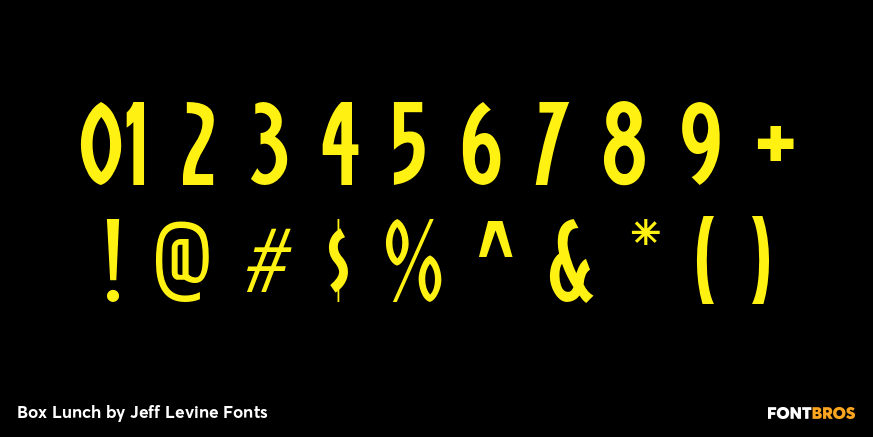
Box Lunch
Just two capital letters from a sign inspired Box Lunch JNL from Jeff Levine. The restaurant - an early 1950s favorite in Miami Beach, Florida specialized in fried chicken meals and other delights of the day - long before the big corporate chains took over the local landscape.